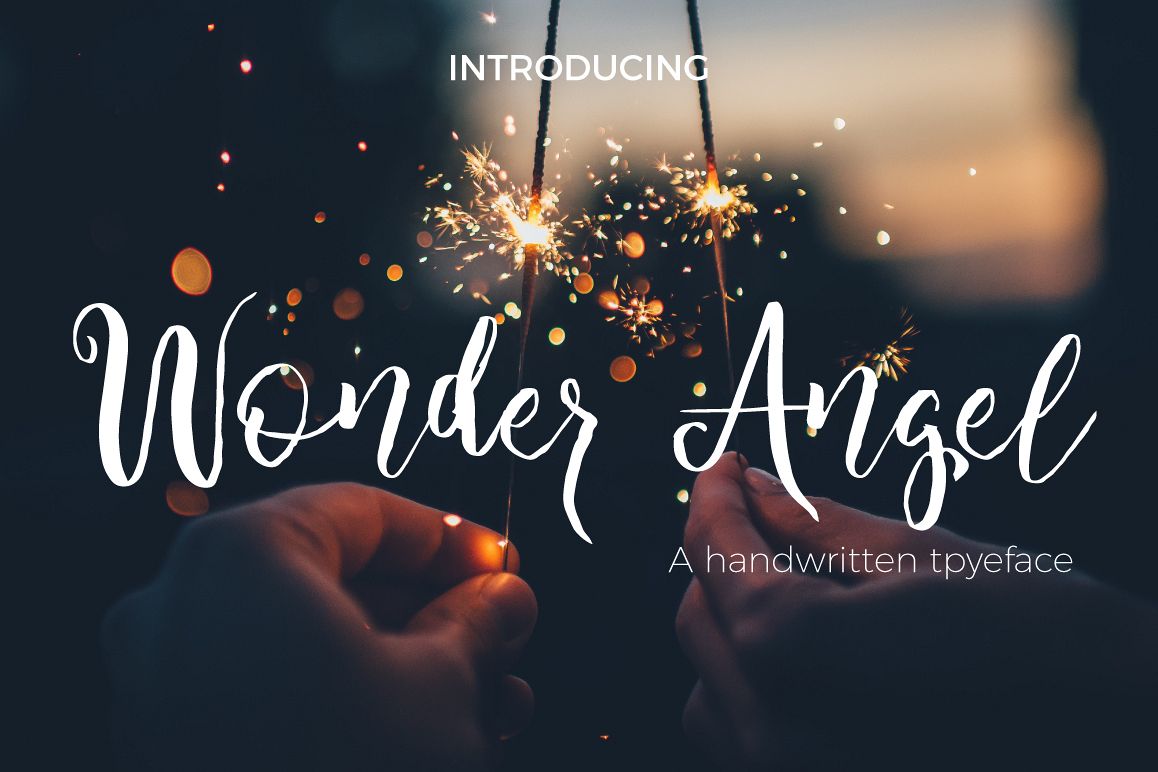
Wonder Angel Script Font
Wonder Angel is a handwriting script typeface designed to give off a bouncing and smooth vibe. Created from a real brush pen.
- Standard English(A-Z, a-z)
- Western European languages supported, numbers(0-9), punctuations
- Ligatures, stylistic alternates, contextual alternates